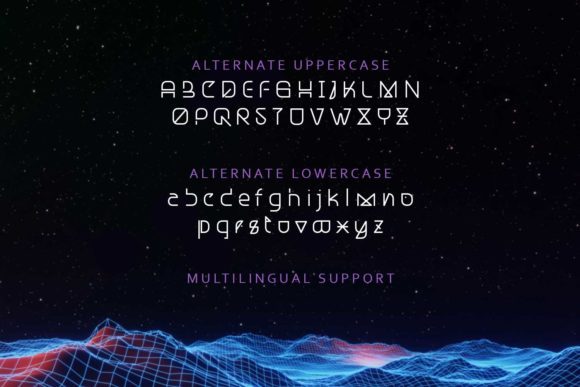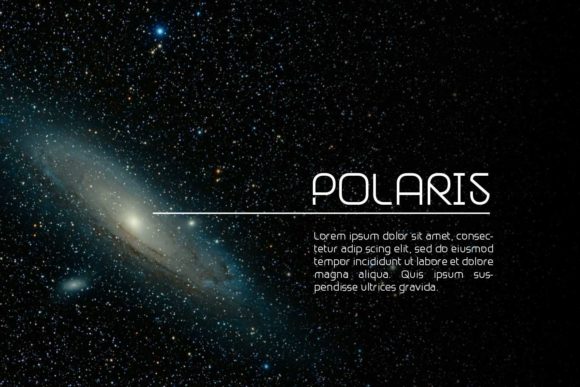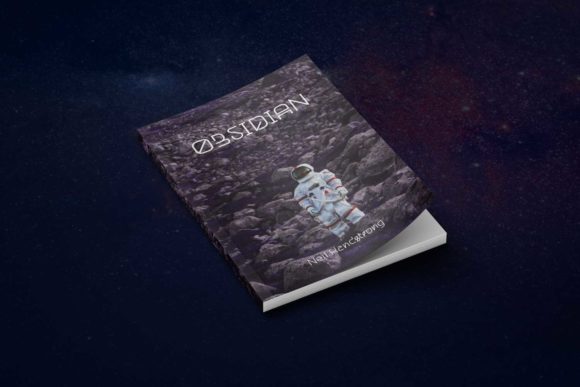
Introduction to Qraydom Font
Have you ever stared at a blank canvas, trying to bring your futuristic vision to life, only to be stumped by the perfect font? That’s where Qraydom Font comes in – a game-changing design resource that’s about to revolutionize your creative project. With its sleek, high-tech aesthetic, this font is the ultimate tool for modern designers looking to create eye-catching, high-quality visuals that transport viewers to a world of science fiction and technology.
Whether you’re designing posters, banners, or logos for gaming and esport content, Qraydom Font is the perfect addition to your design arsenal. Its versatility and futuristic feel make it an ideal choice for anyone looking to create a techno-inspired look that’s both modern and timeless. And the best part? This high-quality font is available for free download, complete with a transparent background that lets your design shine.
Key Features of Qraydom Font
- Includes a range of styles and weights, making it a versatile design resource for various creative projects.
- High-resolution design, suitable for use in various applications, including print and digital media.
- Qraydom Font is designed to be highly legible and readable, even at small font sizes.
- Perfect for designers working on creative projects, including branding, advertising, and editorial content.
Honest Review: Qraydom Font
As a designer, I’m always on the lookout for high-quality design resources that can elevate my creative projects. Recently, I stumbled upon the Qraydom Font, and I must say, it’s been a game-changer for me.
Here are some of the things that work well for me:
- ✨ The font is incredibly versatile and can be used for a wide range of creative projects, from logos to typography-based designs.
- ✨ The high-quality design ensures that the font looks sharp and crisp, even when used on a transparent background.
However, there are a few limitations that I’ve encountered:
- ⚠️ The font may not be suitable for very small text sizes, as it can become pixelated.
- ⚠️ The lack of bold and italic variations can make it difficult to create emphasis in certain designs.
Overall, I’m thoroughly impressed with the Qraydom Font. Its high quality, versatility, and free download option make it a valuable addition to any designer’s toolkit. While it may have a few limitations, I believe it’s a great resource for designers looking to create stunning, professional-looking designs.
Common Use Cases for Qraydom Font
The Qraydom Font is ideal for creative projects requiring a high-quality design resource. Use it for headings, titles, or body text in presentations, documents, or digital designs. Its transparent background makes it perfect for layering design elements and creating visually appealing designs.